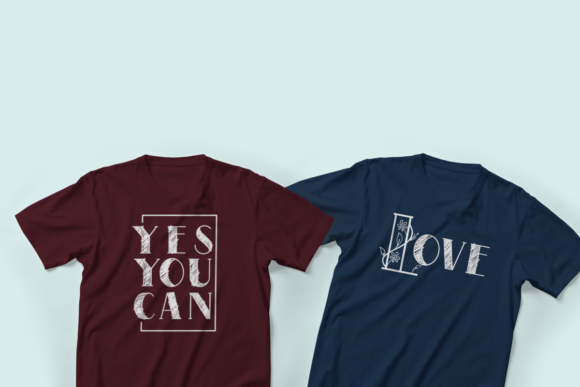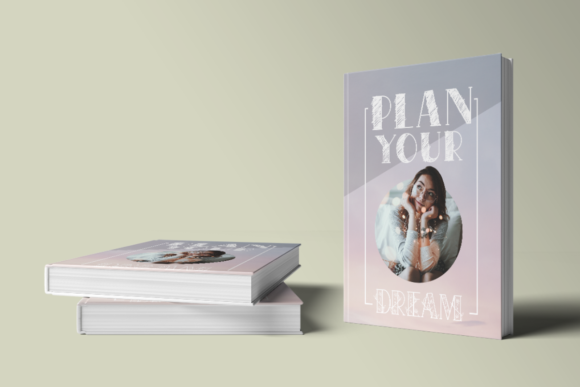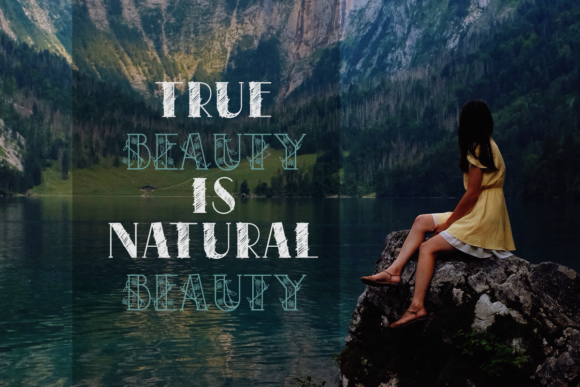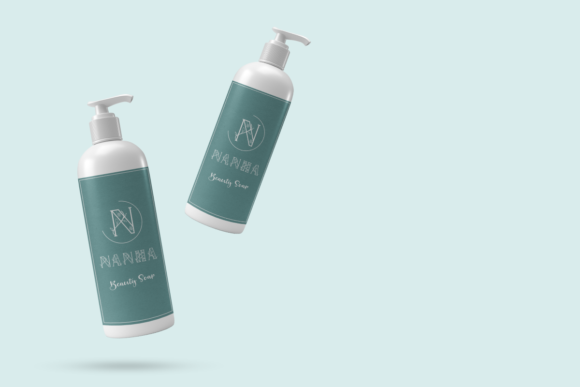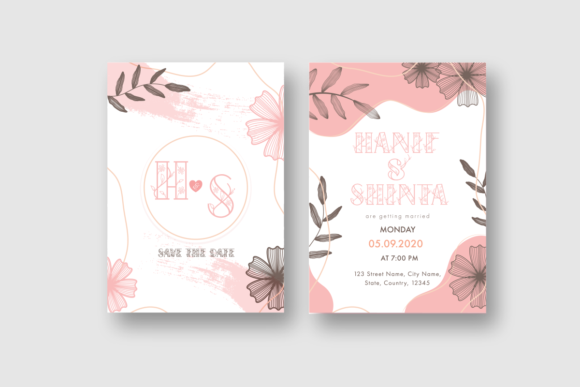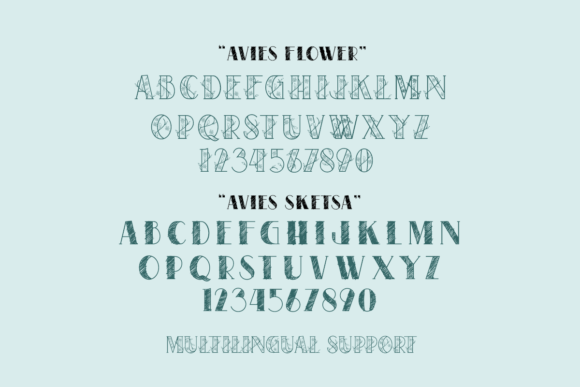
Introducing Avies Font: The Sweet Decorative Font for Your Creative Projects
Are you looking for a font that can add a touch of elegance and whimsy to your designs? Look no further than Avies Font, a sweet decorative font that features lovely leaves and flower ornaments. With its authentic feel and versatile uses, Avies Font is perfect for designers and crafters who want to create stunning wedding invitations, beautiful stationary art, eye-catching social media posts, and cute greeting cards.
The Charm of Avies Font
Avies Font is a unique and charming font that is sure to capture the hearts of designers and crafters alike. Its sweet and delicate design features lovely leaves and flower ornaments that give it an authentic and organic feel. The font is perfect for anyone who wants to add a touch of nature and elegance to their designs. Whether you’re creating wedding invitations, stationary art, or social media posts, Avies Font is sure to make your designs stand out.
Uses of Avies Font
Avies Font is a versatile font that can be used for a variety of creative projects. Here are some of the ways you can use Avies Font:
- Wedding Invitations: Avies Font is perfect for creating beautiful and elegant wedding invitations. Its delicate design and lovely ornaments make it a great choice for wedding stationery.
- Stationary Art: Avies Font can be used to create stunning stationary art, including notecards, journals, and planners.
- Social Media Posts: Avies Font is a great choice for creating eye-catching social media posts. Its unique design and charming ornaments make it sure to grab the attention of your followers.
- Greeting Cards: Avies Font is perfect for creating cute and charming greeting cards for special occasions, including birthdays, holidays, and anniversaries.
Features of Avies Font
Avies Font has several features that make it a great choice for designers and crafters. Here are some of its key features:
- Sweet and Delicate Design: Avies Font features a sweet and delicate design that is sure to charm your audience.
- Lovely Leaves and Flower Ornaments: The font features lovely leaves and flower ornaments that give it an authentic and organic feel.
- Versatile Uses: Avies Font can be used for a variety of creative projects, including wedding invitations, stationary art, social media posts, and greeting cards.
- Elegant and Whimsical: Avies Font is both elegant and whimsical, making it perfect for designers and crafters who want to add a touch of sophistication and playfulness to their designs.
Tips for Using Avies Font
Here are some tips for using Avies Font:
- Pair it with Other Fonts: Avies Font can be paired with other fonts to create a unique and interesting design.
- Use it for Headings and Titles: Avies Font is perfect for headings and titles, where its elegant and whimsical design can really shine.
- Experiment with Colors: Avies Font looks great in a variety of colors, so don’t be afraid to experiment and find the perfect color for your design.
- Use it for Digital and Print Projects: Avies Font can be used for both digital and print projects, making it a versatile font for designers and crafters.
Avies Font is a sweet and charming font that is perfect for designers and crafters who want to add a touch of elegance and whimsy to their designs. With its lovely leaves and flower ornaments, Avies Font is sure to capture the hearts of your audience. Whether you’re creating wedding invitations, stationary art, social media posts, or greeting cards, Avies Font is a great choice. So why not give it a try and see how it can elevate your designs?